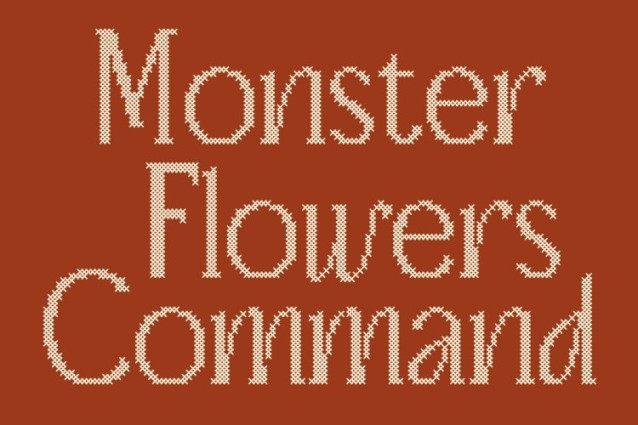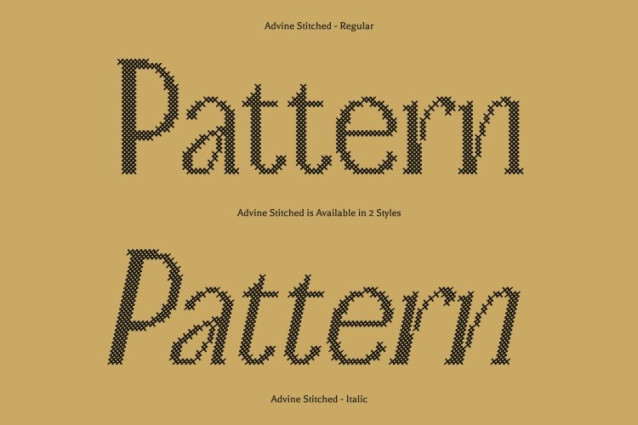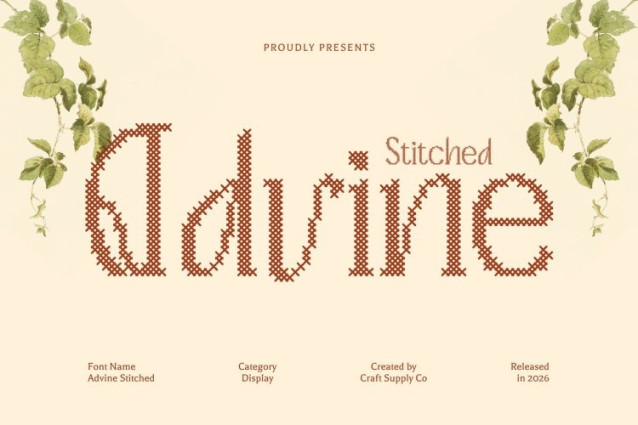
Advine Stitched Font – This is a refined low-contrast serif font characterized by subtle variations in stroke thickness that enhance readability while preserving a graceful, classic appearance. Its balanced proportions and smooth structure create a timeless elegance suitable for both decorative and extended text use.
Art Nouveau Inspiration with Flowing Forms
Inspired by the beauty of the Art Nouveau movement, features flowing letterforms and organic curves that echo the intricate artistry of late 19th-century design. The gentle arcs and refined contours bring sophistication and decorative charm, evoking the fluid aesthetics found in Art Nouveau art and architecture.
Stitched Texture with Nostalgic Character
Enhanced with a stitched style designed to mimic thread sewn or embroidered on fabric, introduces a handcrafted dimension to its elegant structure. The cross-shaped stitch pattern creates a distinctive embossed and structured texture, delivering a classic, nostalgic, and relaxed impression. This unique detail adds warmth and personality while maintaining the font’s refined aesthetic.
Versatile for Elegant and Craft-Inspired Projects
Despite its strong Art Nouveau influence, this font remains highly versatile. It works beautifully for editorial layouts, invitations, branding, fashion logos, craft-themed designs (DIY), school projects, and decorative digital applications. Blending flowing elegance with tactile stitched detailing, offers a harmonious balance of sophistication, charm, and personal warmth for a wide range of creative projects.